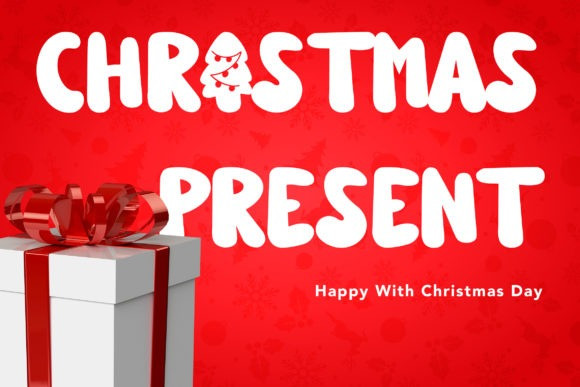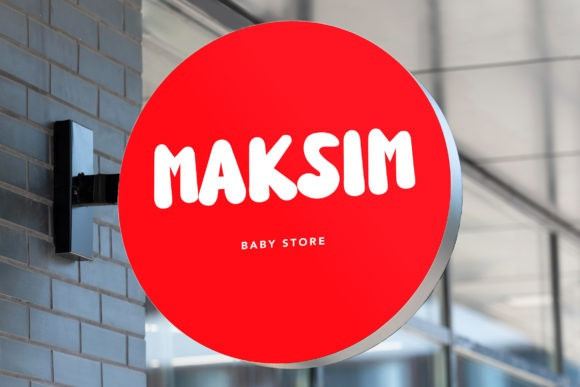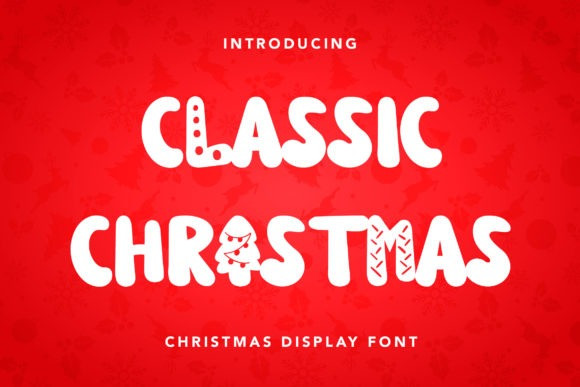
Classic Christmas Font
Classic Christmas Display Font is a distinctive and jolly display font, perfect for Christmas or winter projects! It works great for Christmas cards, gift packaging, stationery, apparel designs, and much more.